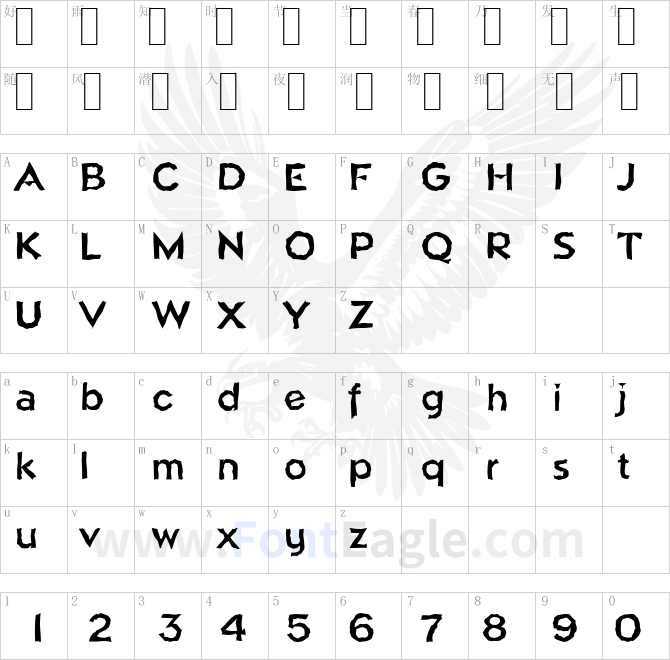
- Font name:NapoliRandom
- Font Subfamily ID:SoftMaker Software GmbH NapoliRandom-Bold
- Font Full Name:NapoliRandom-Bold
- Postscript:NapoliRandomBold